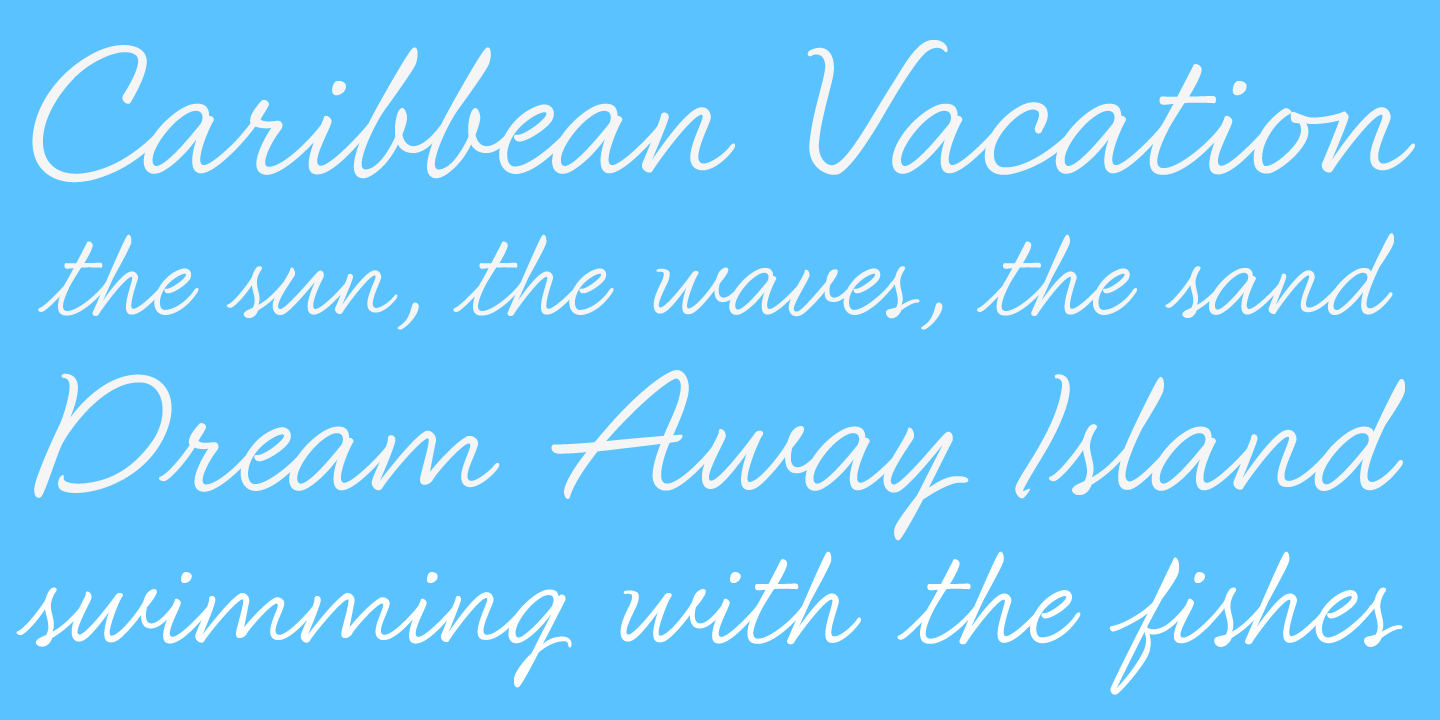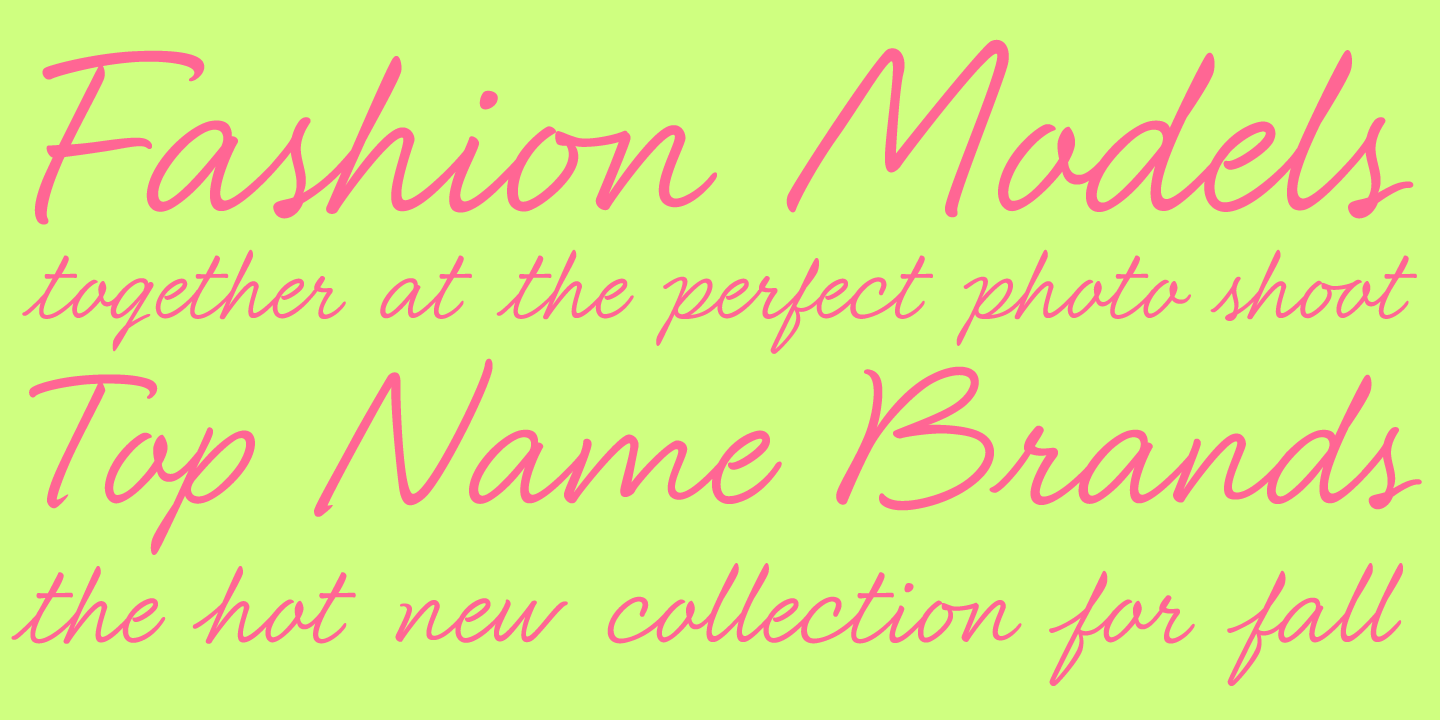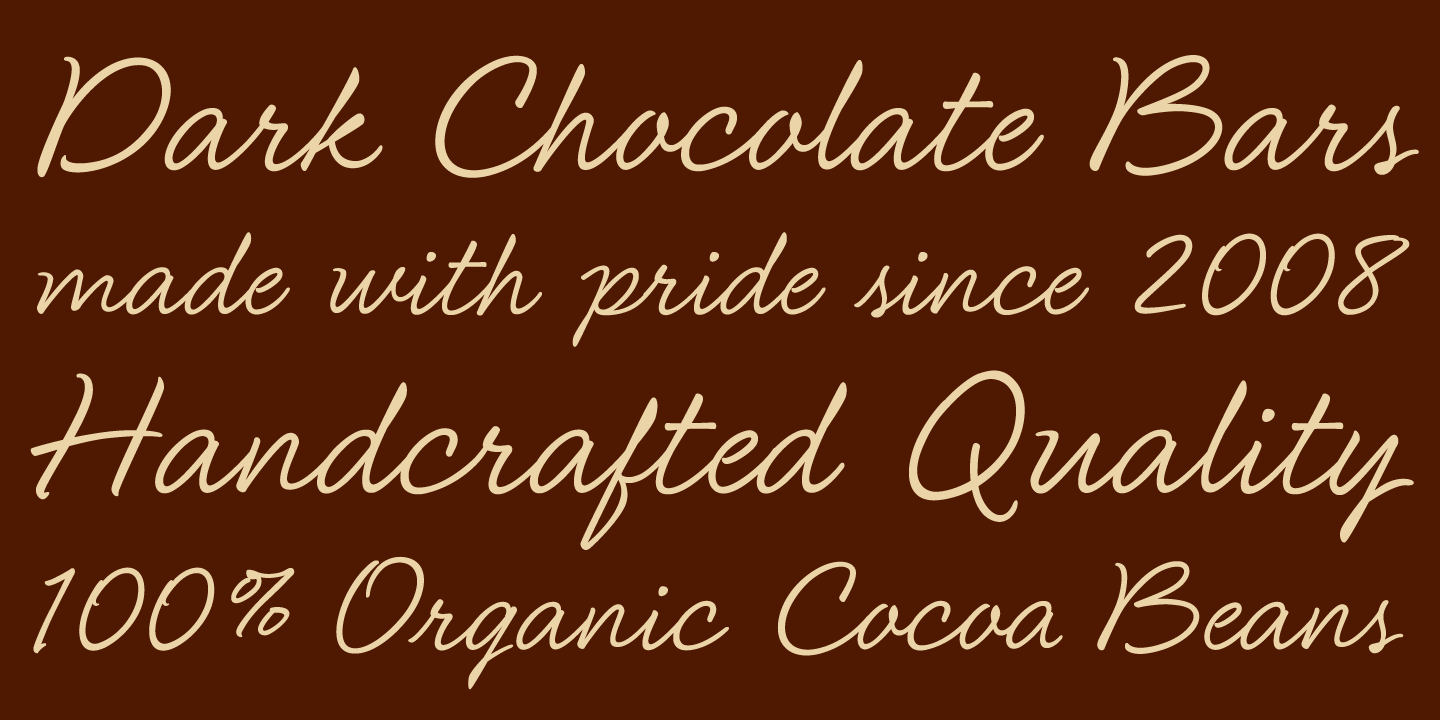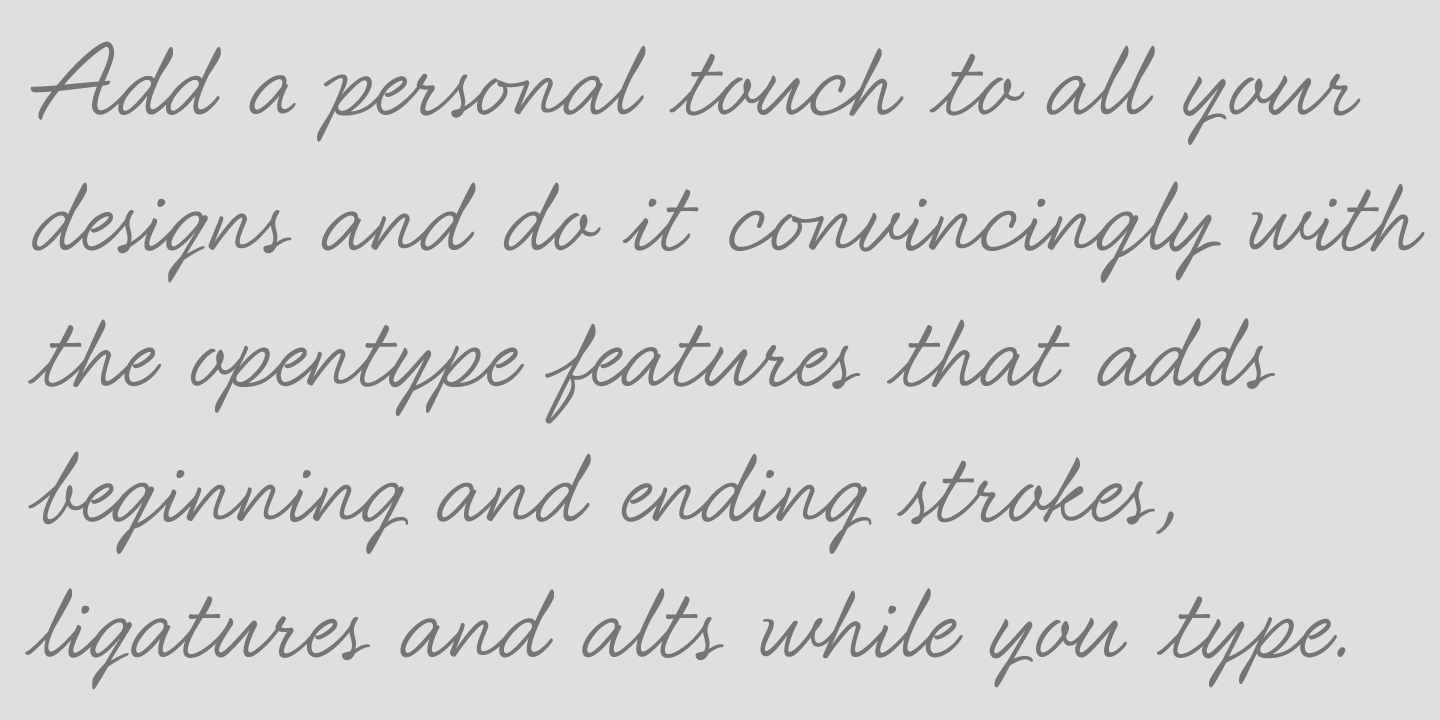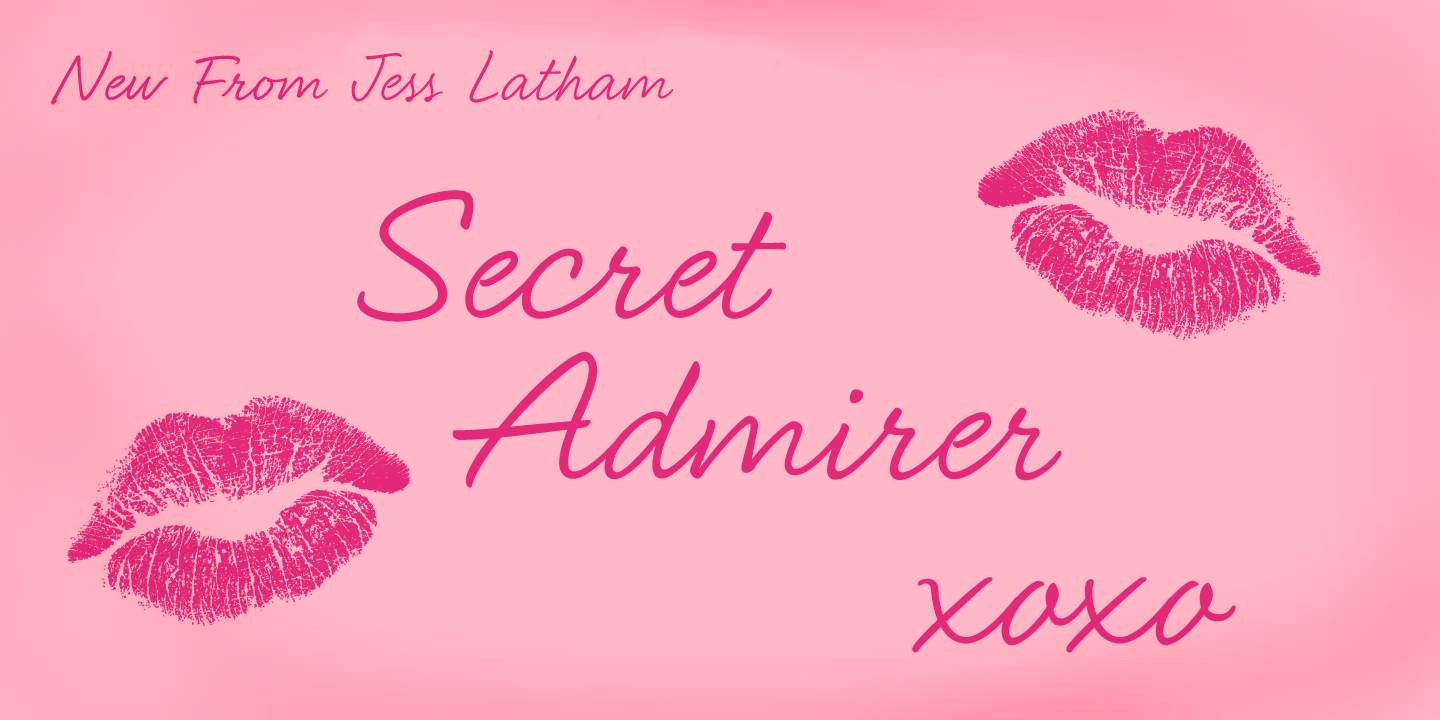
About Secret Admirer
Secret Admirer is a cursive handwriting font with a fresh and modern appeal. Add a personal touch to all your designs and do it convincingly with the opentype features that adds beginning and ending strokes, ligatures and alts while you type. Secret…